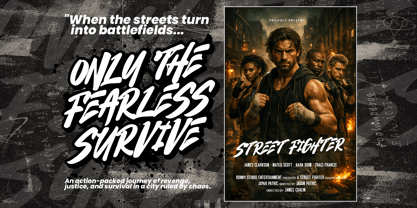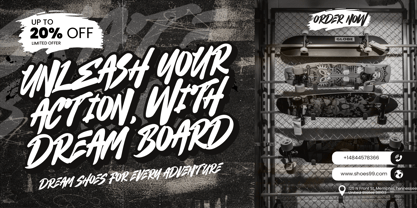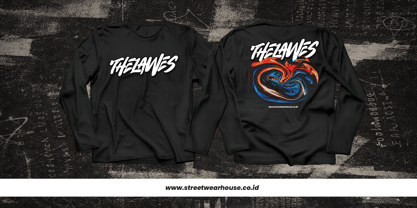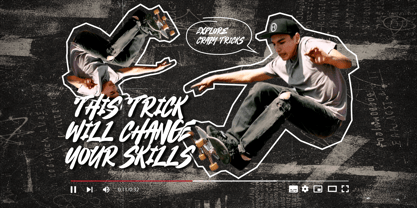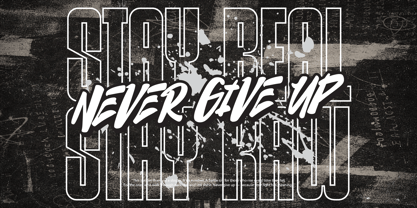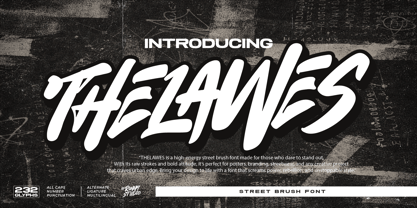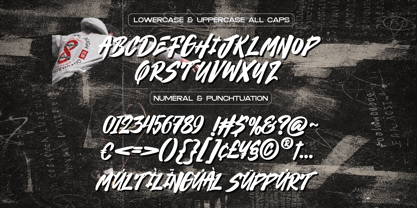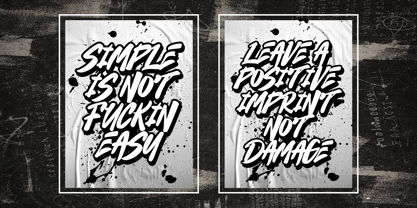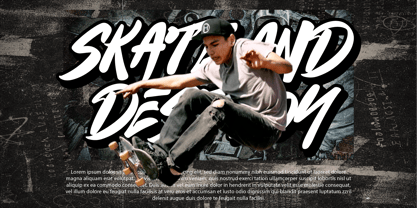
Thelawes
by Ronny Studio
The Thelawes Font Family was designed by Rony Rizki Jaya and published by Ronny Studio. Thelawes contains 1 styles. More about this family
Thelawes is a bold street brush font inspired by graffiti culture, skate movement, and underground energy. Designed with raw, expressive strokes, it delivers strong attitude and visual impact in every letter. Perfect for posters, branding, album covers, urban promotions, social media graphics, and bold creative projects. Includes uppercase, lowercase, numbers, punctuation, multilingual support, alternates & ligatures (PUA encoded).
Designers: Rony Rizki Jaya
Foundry: Ronny Studio